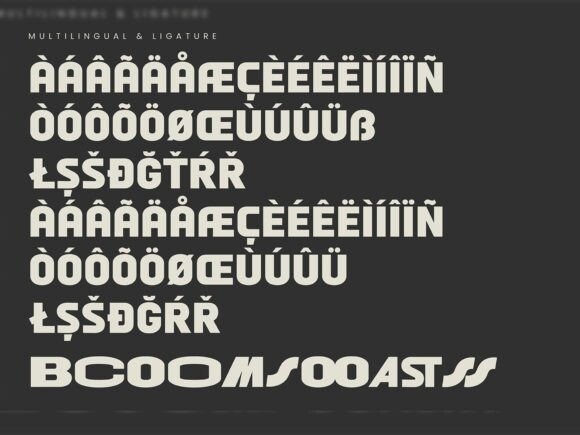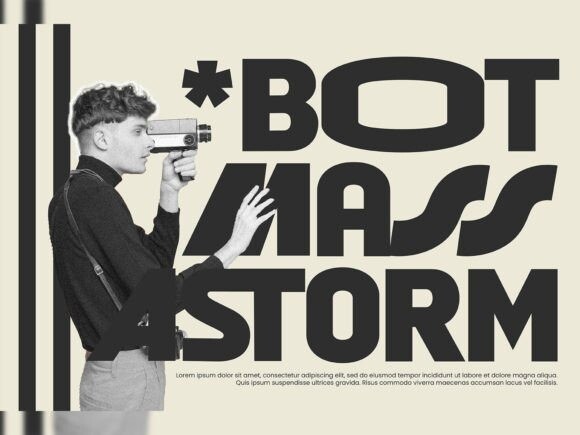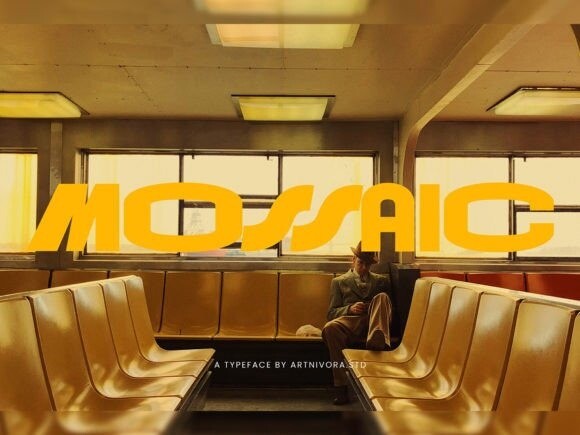
Mossaic Font
Mossaic Font, a simple and decorative typeface. It is perfect for you who needs a typeface for logo designs, magazine, social media, brochures, and many more.